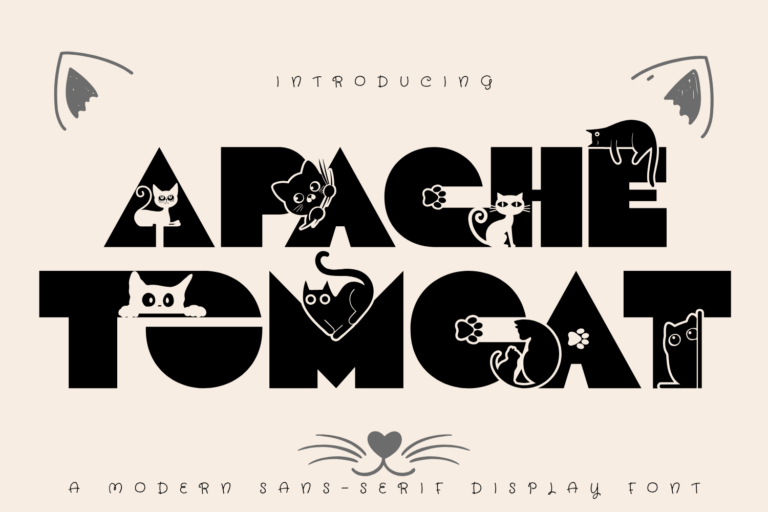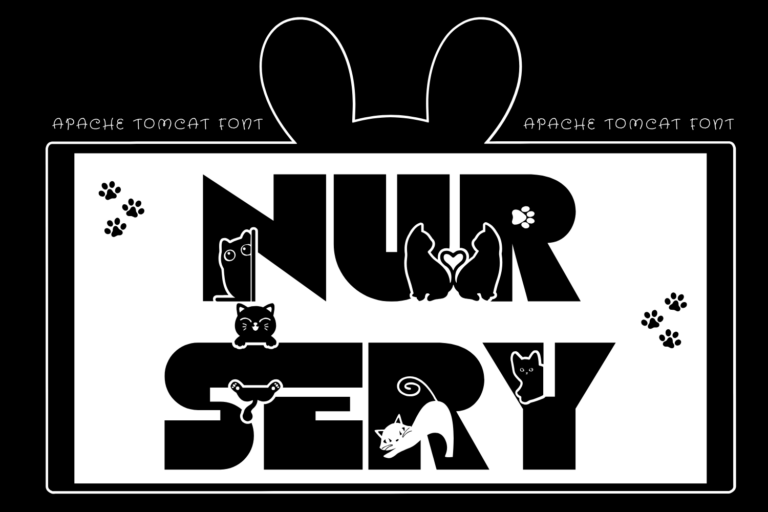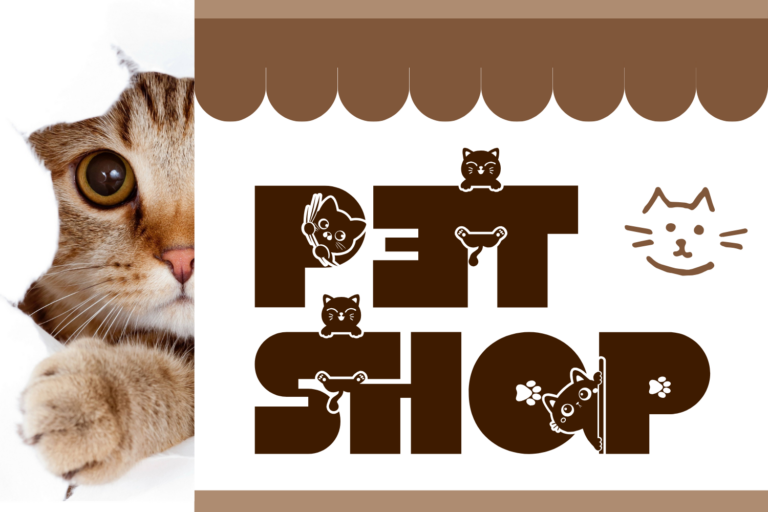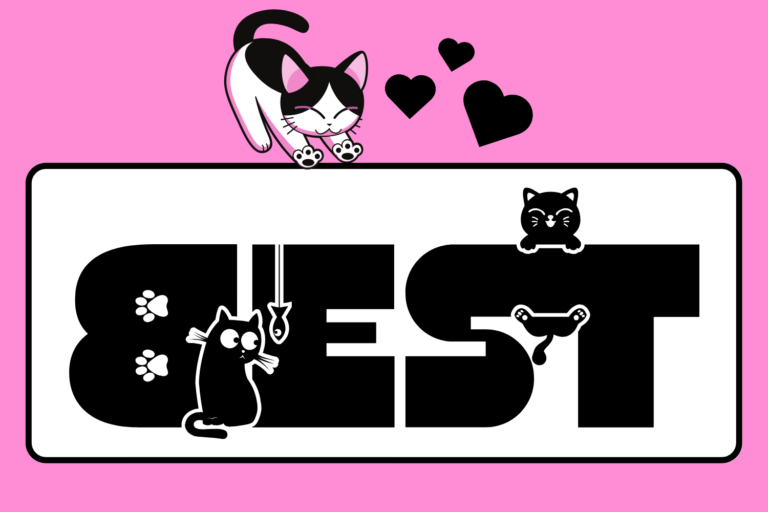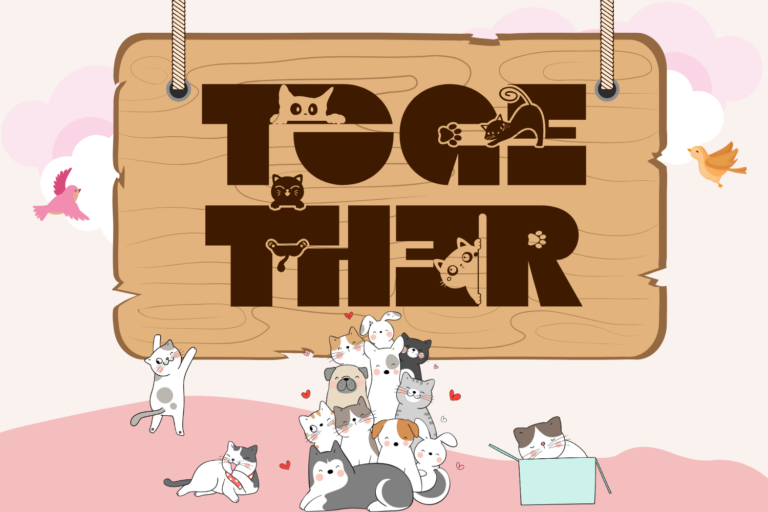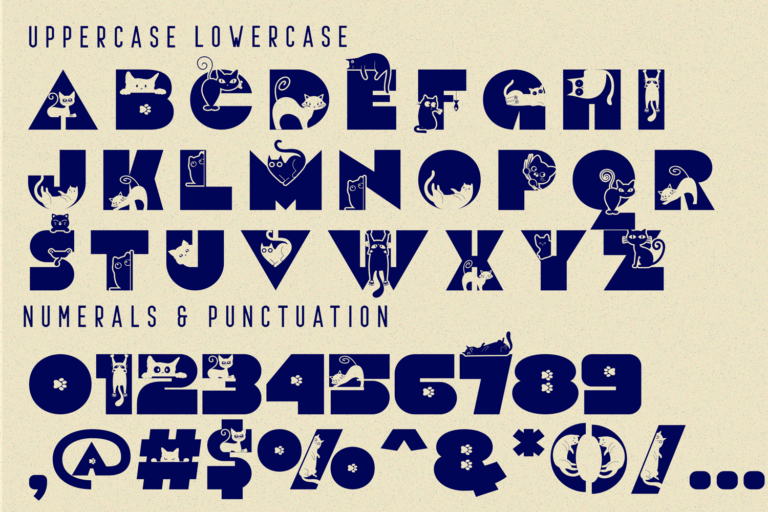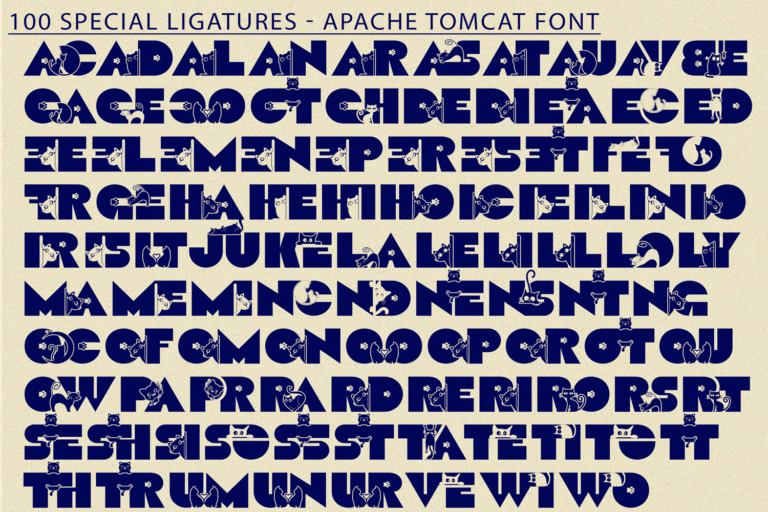
Apache Tomcat – Decorative Font is a charming decorative display font that fuses bold geometric lettering with delightful cat illustrations. Each uppercase letter is uniquely integrated with playful feline graphics—cats stretching, peeking, lounging, and interacting with the letterforms—making every word a fun visual composition. Perfect for children’s books, pet shops, animal rescue branding, greeting cards, or quirky product packaging, this font turns typography into storytelling.
Font Features:
• Uppercase Letters
• 100+ Whimsical Ligatures and Alternates featuring various cat poses
• Accented Characters for multilingual support
ac ad al an ar as at au av be ca ce ch co ct de di ea ec ed ee el em en ep er es et fe fo fr ge ha he hi ho ie ic il in io ir is it ju ke la le li ll lo ly ma me mi nc nd ne ng no nt ns oc of om on oo op or ot ou ow pa pr ra rd re ri ro rs rt se sh si so ss st ta te th ti to tr tt um un ur ve wi wo
Apache Tomcat – Decorative Font